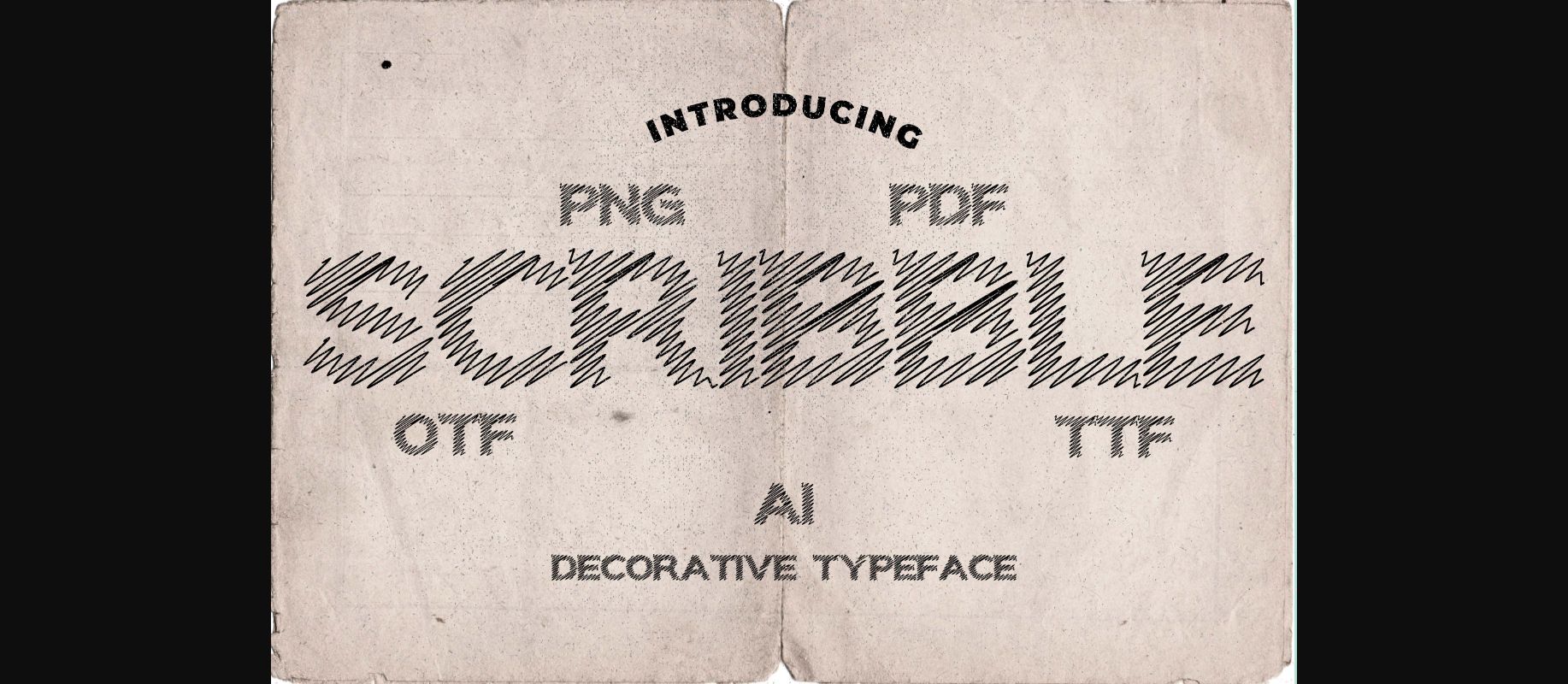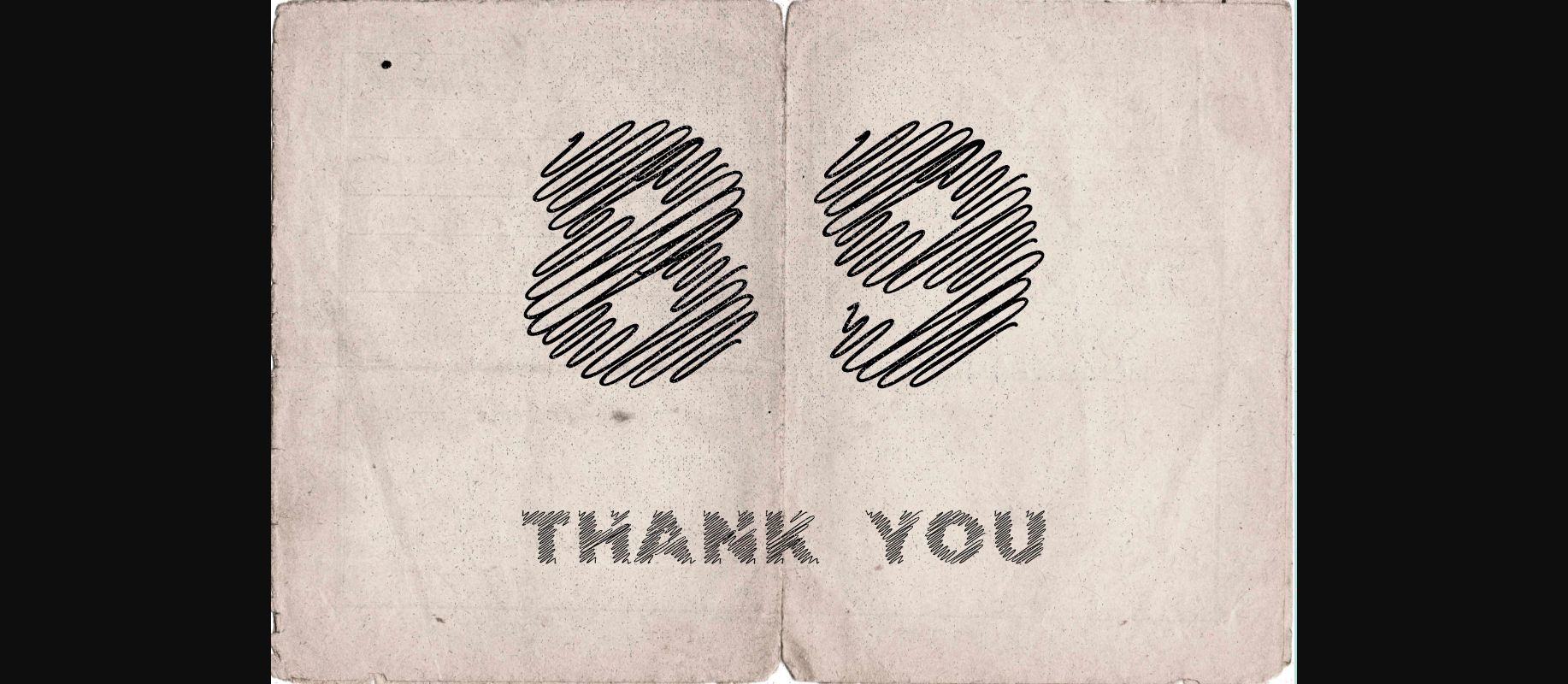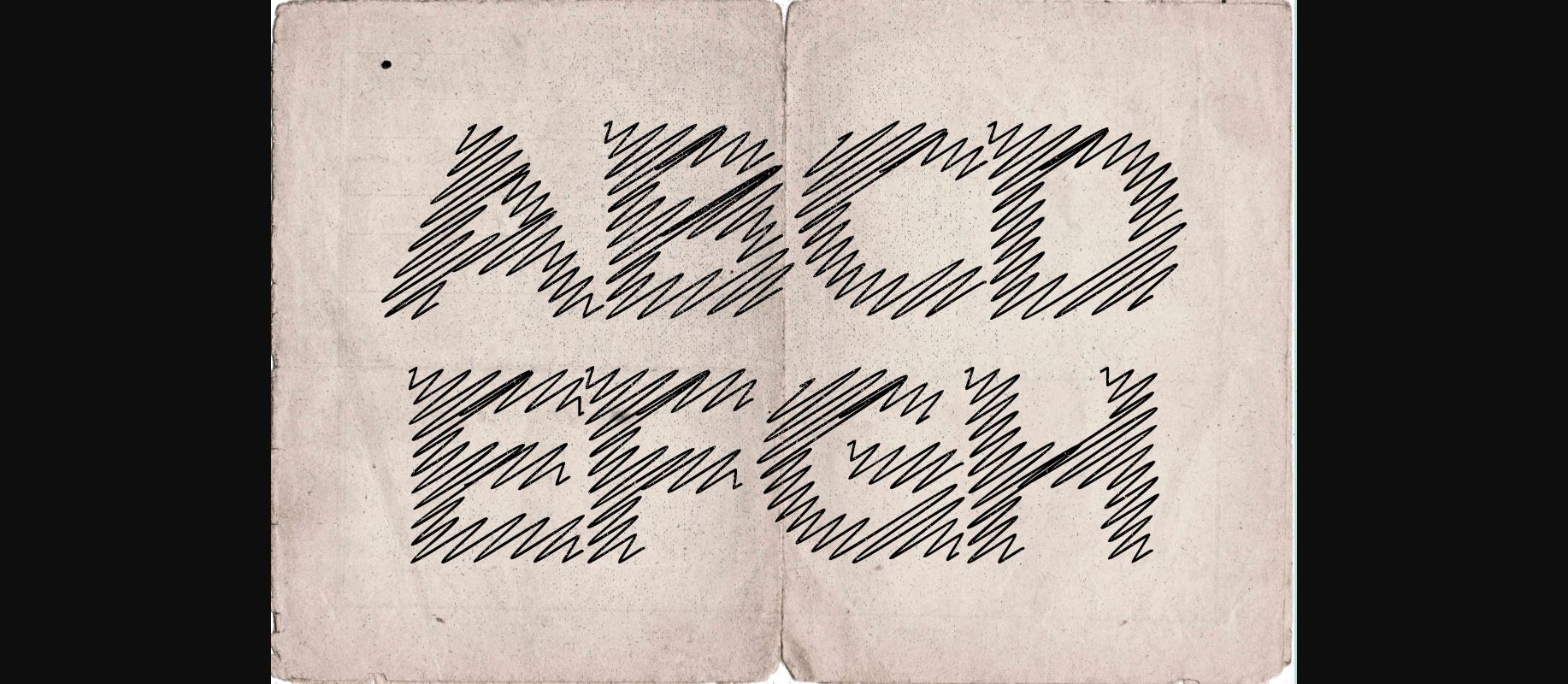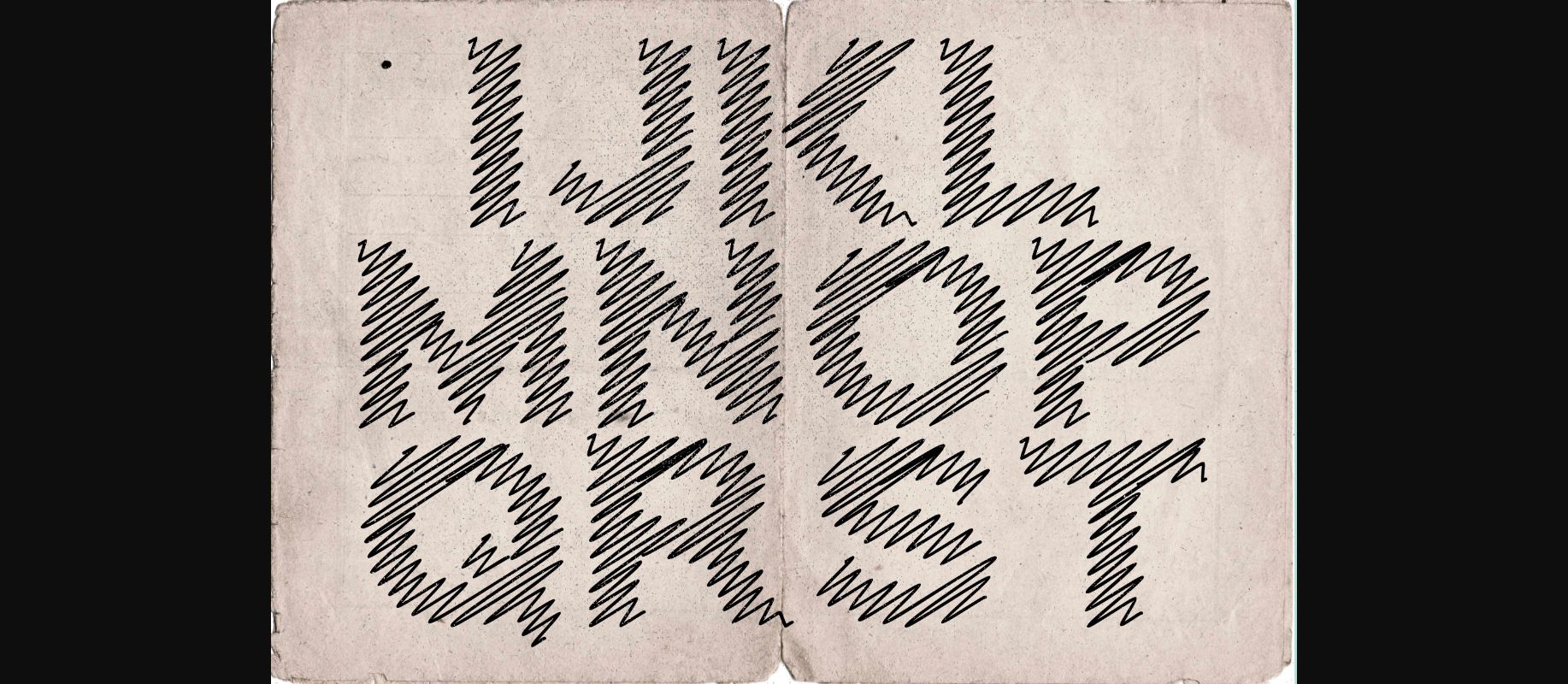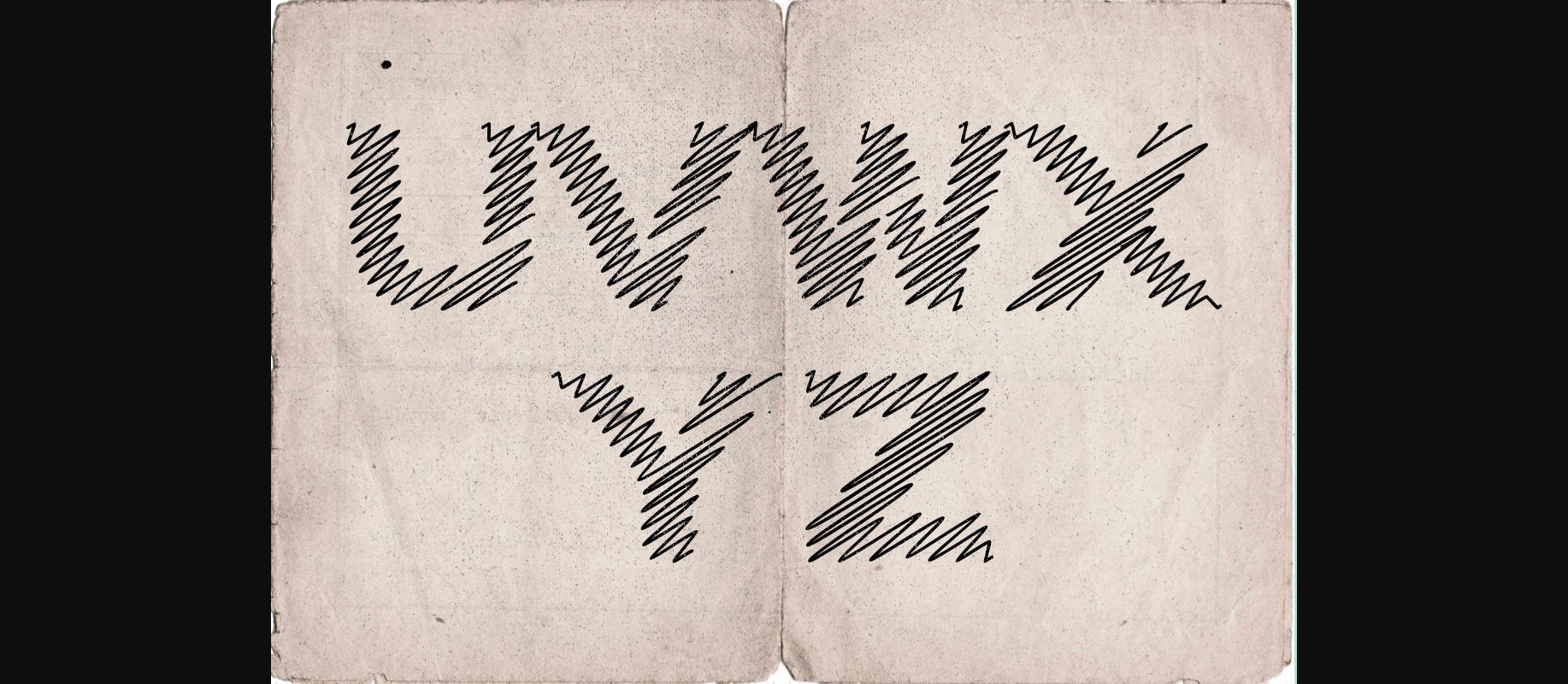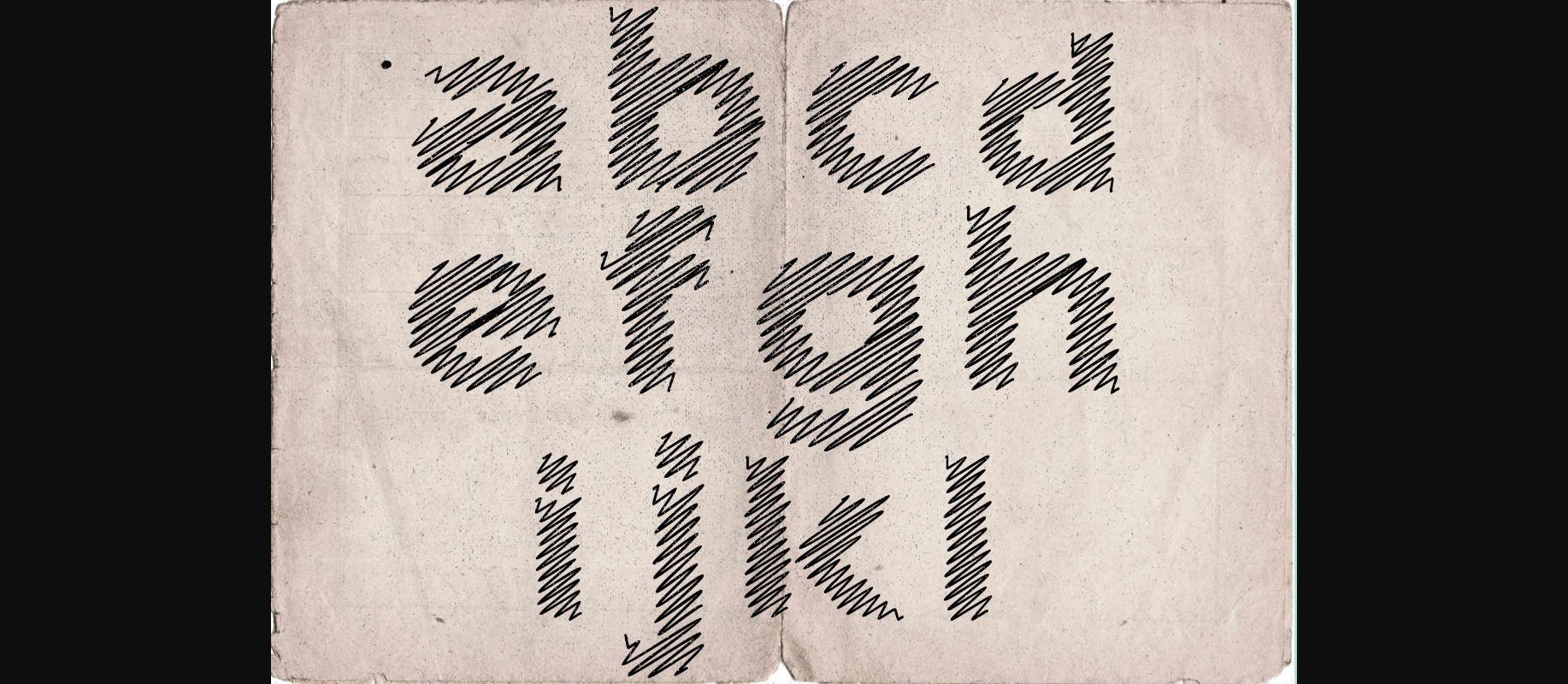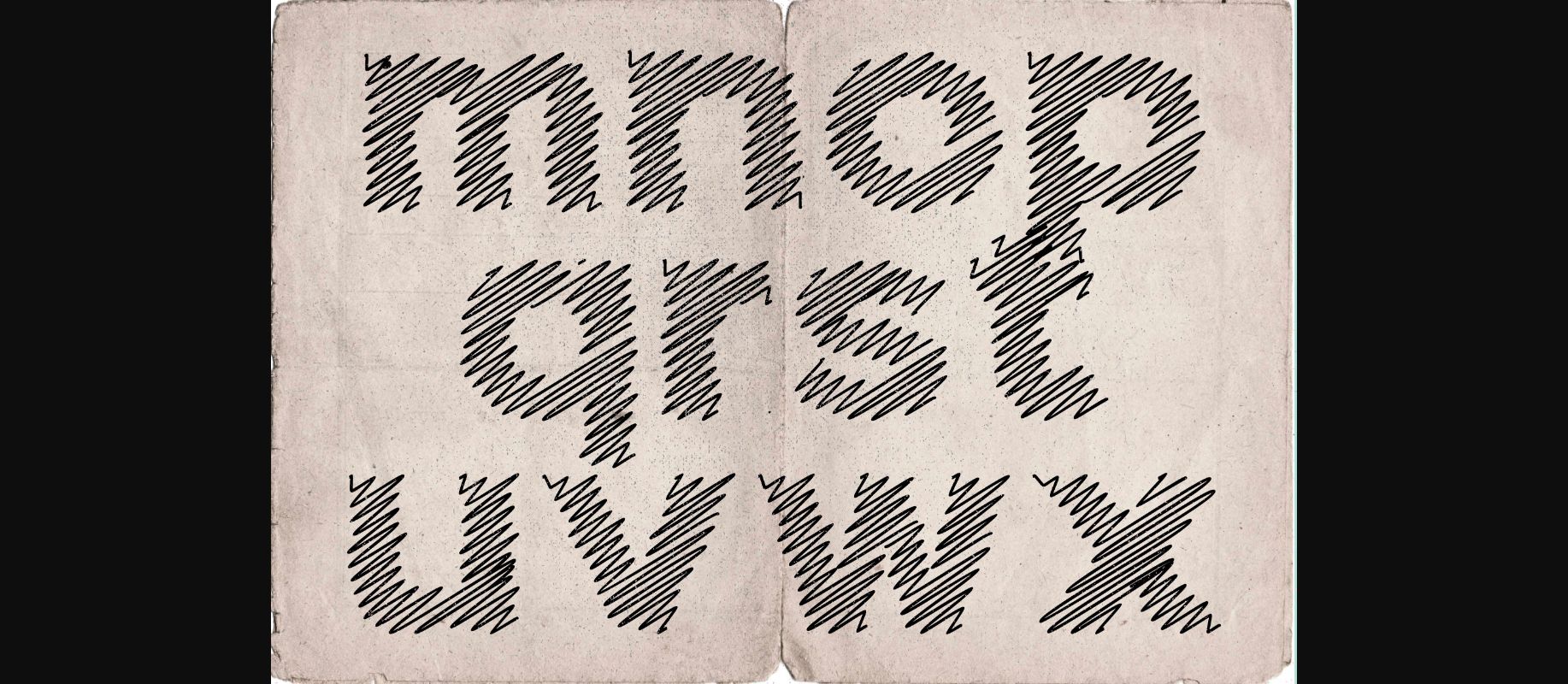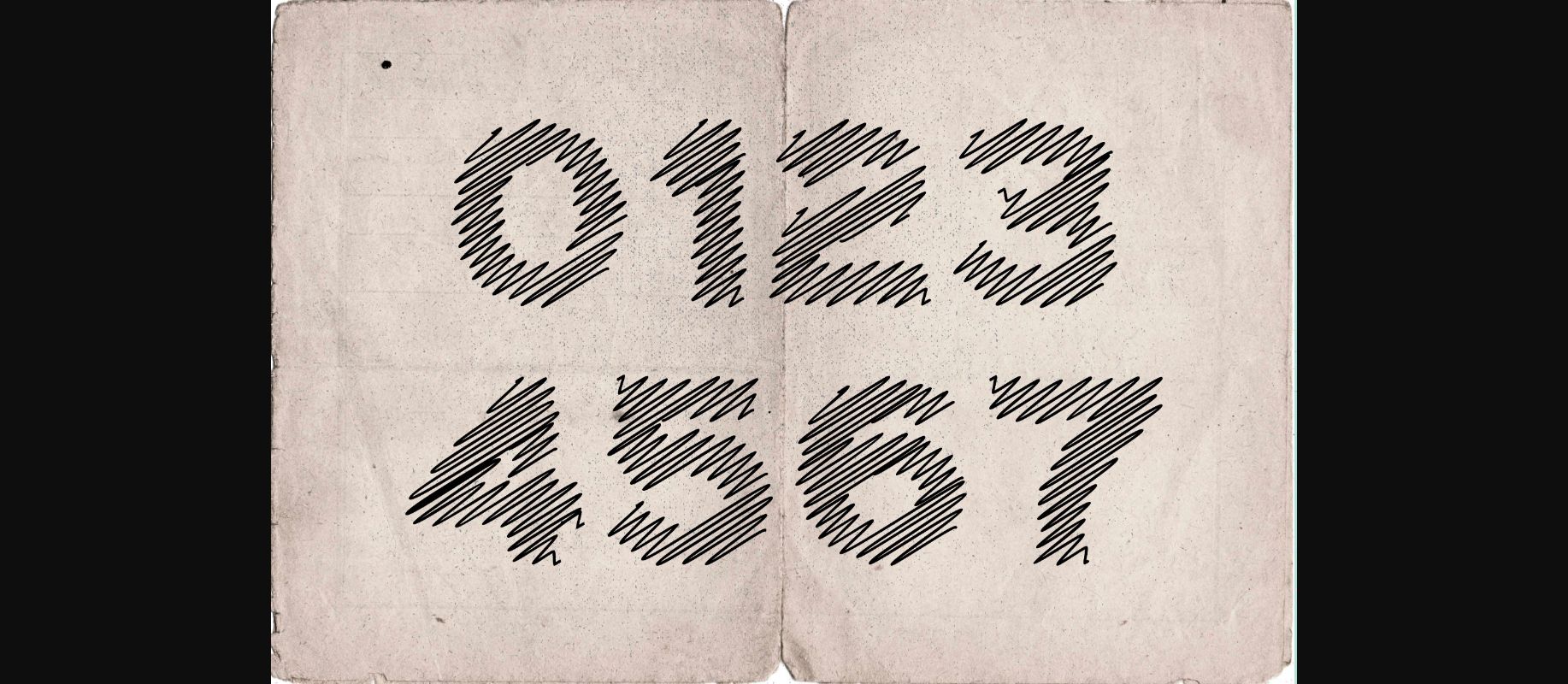
HomeDecorative FontsScribble Font Decorative Fonts Scribble Font FacebookXPinterestWhatsApp 1 of 10 ... Scribble Font Poster 2... Scribble Font Poster 3... Scribble Font Poster 4... Scribble Font Poster 5... Scribble Font Poster 6... Scribble Font Poster 7... Scribble Font Poster 8... Scribble Font Poster 9... Scribble Font Poster 10... About Scribble Font Scribble is a really cute, simple yet unique decorative font that can be used for all chalkboard quotes or teaching material! Its authentic look will add a personal and realistic feel to your designs. DOWNLOAD NOW People also explored Anythink Font Amiko Winter Font Julietta Font Parisly Font Ganksy Gabutburit Font Roncek Font Homegrown Traditions Font Small Font 405 0 TagsScribble Font Previous articleButterfly Lover Monogram FontNext articleInsect AZ Font LEAVE A REPLY Cancel reply Comment: Please enter your comment! Name:* Please enter your name here Email:* You have entered an incorrect email address! Please enter your email address here Website: Save my name, email, and website in this browser for the next time I comment. Personal Use Free Alista Font Personal Use Free Read more about this font BD Spinner Personal Use Free Read more about this font Lanilla Personal Use Free Read more about this font Starry Cakes Personal Use Free Read more about this font BLOG 5 Fonts That Will Dominate Design Trends in 2026 5 Fonts for 2026 That Will Dominate Design Trends Typography plays a critical role in visual communication, and as we look ahead to 2026, it’s... Best Fonts for T-Shirt Design – Top 2025 Picks Transform Your Website: Elevate Your Typography with 7 Best Web Font Generators Exploring Font Trends